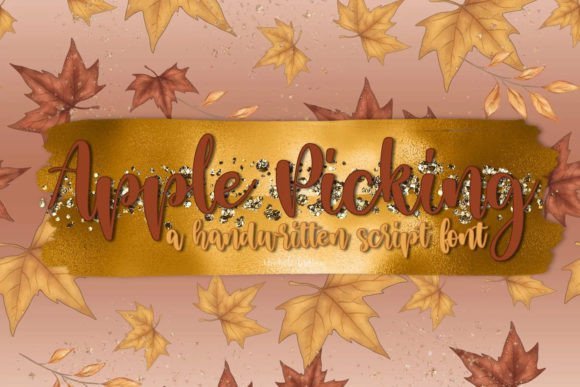
Have you ever been rummaging through a farmer’s market, surrounded by the vibrant colors and enticing aromas of fresh produce, and stumbled upon the perfect apple? The way it catches your eye, its imperfections and uniqueness making it stand out from the rest? That’s exactly what the Apple Picking Font aims to capture – the essence of something truly special.
As a stylish script font, Apple Picking is designed to add a touch of personality to your designs. Whether you’re creating invitations, cards, or promotional materials, this bouncy and trendy font is sure to make your projects pop. Its versatility and charm make it a valuable addition to any designer’s toolkit, and its ease of use ensures that you can create professional-looking designs without breaking a sweat.
- Font Family: A unique, hand-drawn font family with a rustic and whimsical feel, perfect for autumn-themed designs.
- Character Set: Includes a wide range of characters, including uppercase and lowercase letters, numbers, punctuation, and special characters, making it suitable for various applications.
- Unique Characteristics: Features intricate details, such as leaf patterns and stems, adding a touch of realism to your designs.
Designer Review: Apple Picking Font
Overall, I’m impressed with the Apple Picking Font’s playful, whimsical feel, perfect for a rustic or autumnal-themed project. The font’s ✨ hand-drawn quality gives it a unique, personalized touch that’s sure to stand out.
- ✨ Unique, hand-drawn style that adds character to designs
- ✨ Versatile font suitable for headings, titles, and body text
- ✨ Includes a range of weights and styles for added flexibility
- ⚠️ Limited legibility at small font sizes, which may make it challenging for body text
- ⚠️ Not ideal for formal or corporate designs, as it may come across as too casual
- ⚠️ Some letters may be difficult to read due to their irregular shapes
While Apple Picking Font is a charming and eye-catching choice, it’s essential to consider its limitations before using it for your project. With some careful selection and styling, however, it can be a wonderful addition to your design toolkit.
Tips: Use Apple Picking Font for headings and titles to create a playful and whimsical feel.
Tips: Use Apple Picking Font for illustrations and graphics to add a touch of nostalgia and charm.
Tips: Use Apple Picking Font for headings and titles to create a rustic and vintage feel.
Apple Picking Font is perfect for:
1. Farm-themed designs and illustrations.
2. Vintage-inspired designs and graphics.
3. Whimsical and playful designs.
Great Vibes Font is a modern, elegant font that’s perfect for designers who want to create a sophisticated and stylish look. It’s great for use in headings, titles, and logos.
Compared to Apple Picking Font, Great Vibes Font has a more refined and polished look, making it ideal for high-end designs. It’s also more versatile and can be used in a wider range of projects.
Pacifico Font is a beautiful, cursive font that’s perfect for designers who want to create a warm and inviting look. It’s great for use in headings, titles, and body text.
Compared to Apple Picking Font, Pacifico Font has a more relaxed and casual feel, making it ideal for designs that need to convey a sense of friendliness and approachability. However, it may not be as suitable for formal or corporate designs.
Lato Font is a clean and modern sans-serif font that’s perfect for designers who want to create a simple and elegant look. It’s great for use in body text, headings, and titles.
Compared to Apple Picking Font, Lato Font has a more minimalist and understated look, making it ideal for designs that need to convey a sense of simplicity and clarity. However, it may not be as suitable for designs that need to convey a sense of personality or whimsy.